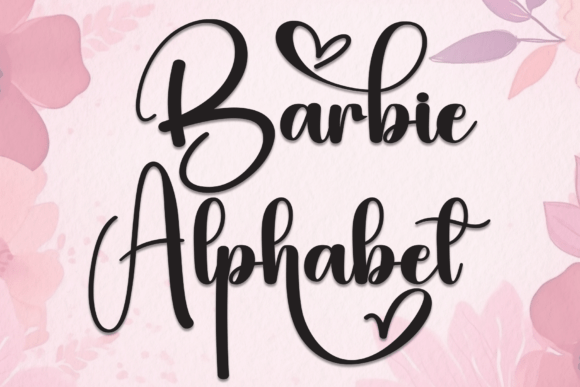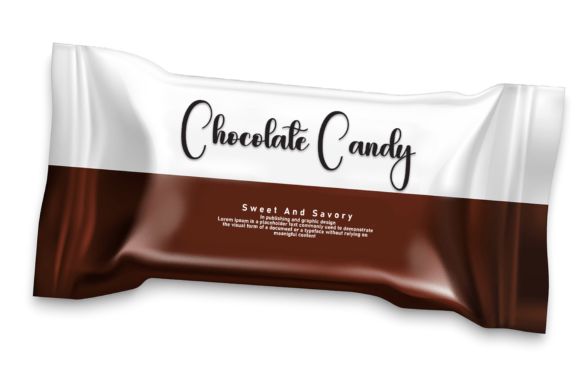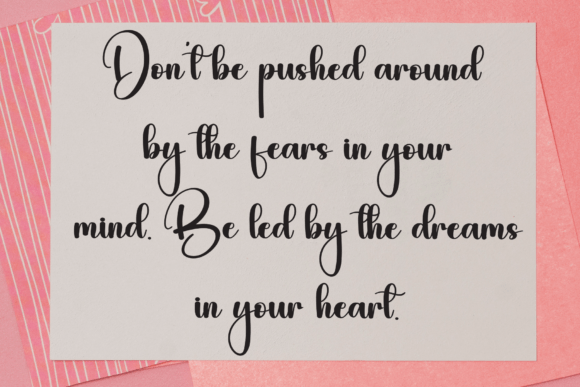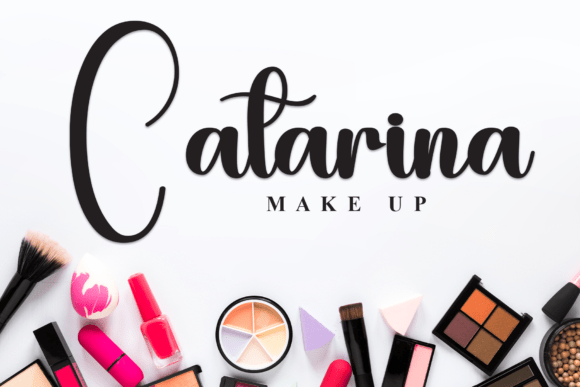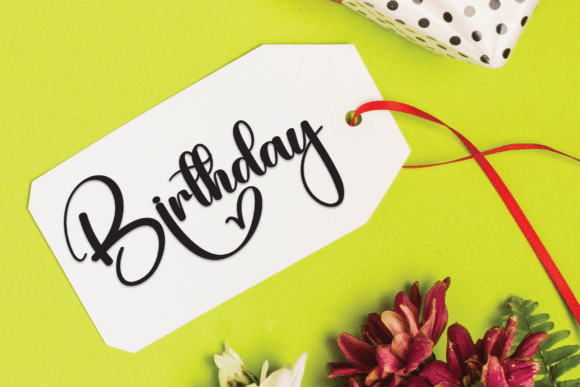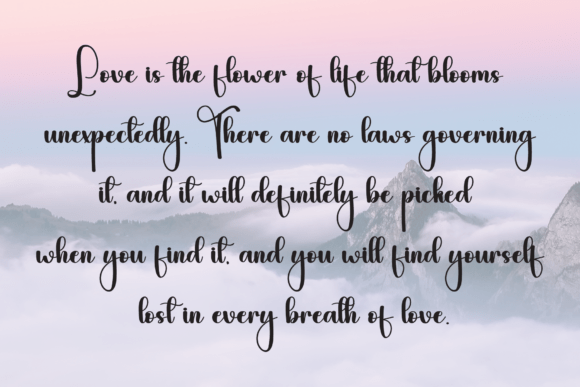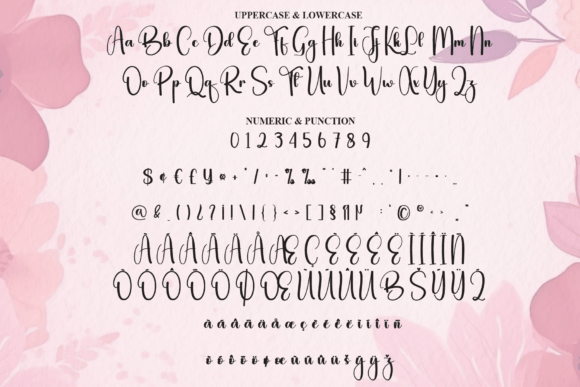
Do you remember the excitement of planning your first big creative project? Maybe it was a birthday party invitation, a handmade card for a loved one, or even a wedding invitation. Whatever it was, the thrill of bringing your vision to life is what gets your creative juices flowing. And, let’s be honest, the right font can make all the difference.
Enter the enchanting Barbie Alphabet Font, a charming handwritten display font that’s sure to bring a touch of sweetness and friendliness to any design project. This delightful font is perfect for crafting unique and memorable invitations, cards, and more. With its endearing and playful demeanor, it’s no wonder designers are falling in love with the Barbie Alphabet Font – and we can’t blame them!
Key Features of Barbie Alphabet Font
- Unique Design: The Barbie Alphabet Font features a distinctive, cursive design inspired by the iconic Barbie doll, making it perfect for adding a touch of whimsy and femininity to your designs.
- Character Set: The font includes a comprehensive set of characters, including uppercase and lowercase letters, numbers, punctuation marks, and special characters, ensuring you have everything you need to create engaging and informative content.
- Customization Options: The Barbie Alphabet Font allows for advanced typographic control, including font style, font size, and color, giving you the flexibility to tailor your designs to suit your specific needs.
Barbie Alphabet Font Review
Overall, I think the Barbie Alphabet Font is a fun and playful font that can be useful for projects that require a whimsical touch. ✨ One of the things that works well is its versatility – it can be used for a wide range of applications, from children’s educational materials to marketing campaigns targeting young audiences.
Another aspect that I appreciate is the variety of characters available, including uppercase and lowercase letters, numbers, and symbols. ✨ The font is also highly customizable, allowing designers to adjust the size, color, and style to suit their needs.
However, there are some limitations to consider. ⚠️ One of the main issues is the font’s readability – in certain situations, the characters can be difficult to distinguish, particularly at smaller sizes. Additionally, the font may not be suitable for formal or professional applications, as it can come across as too childish.
- Readability can be an issue, especially at smaller sizes.
- May not be suitable for formal or professional applications.
Overall, I think the Barbie Alphabet Font is a useful tool for designers who need a playful and whimsical font for their projects. While it has some limitations, it can be a great addition to any designer’s toolkit.
The Barbie Alphabet Font is perfect for:
Children’s party invitations and decorations.
Themed events, such as a Barbie-themed birthday party.
DIY crafts and art projects.
Adding a touch of whimsy to social media graphics and blog posts.